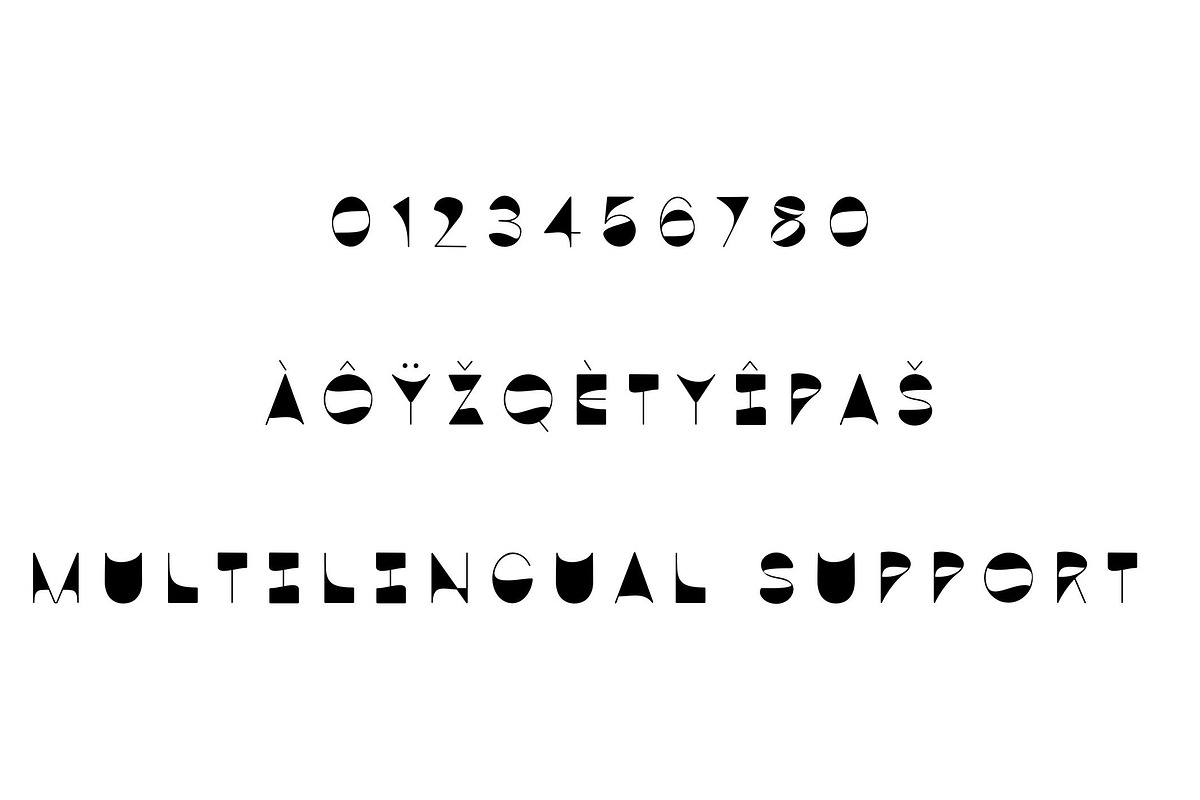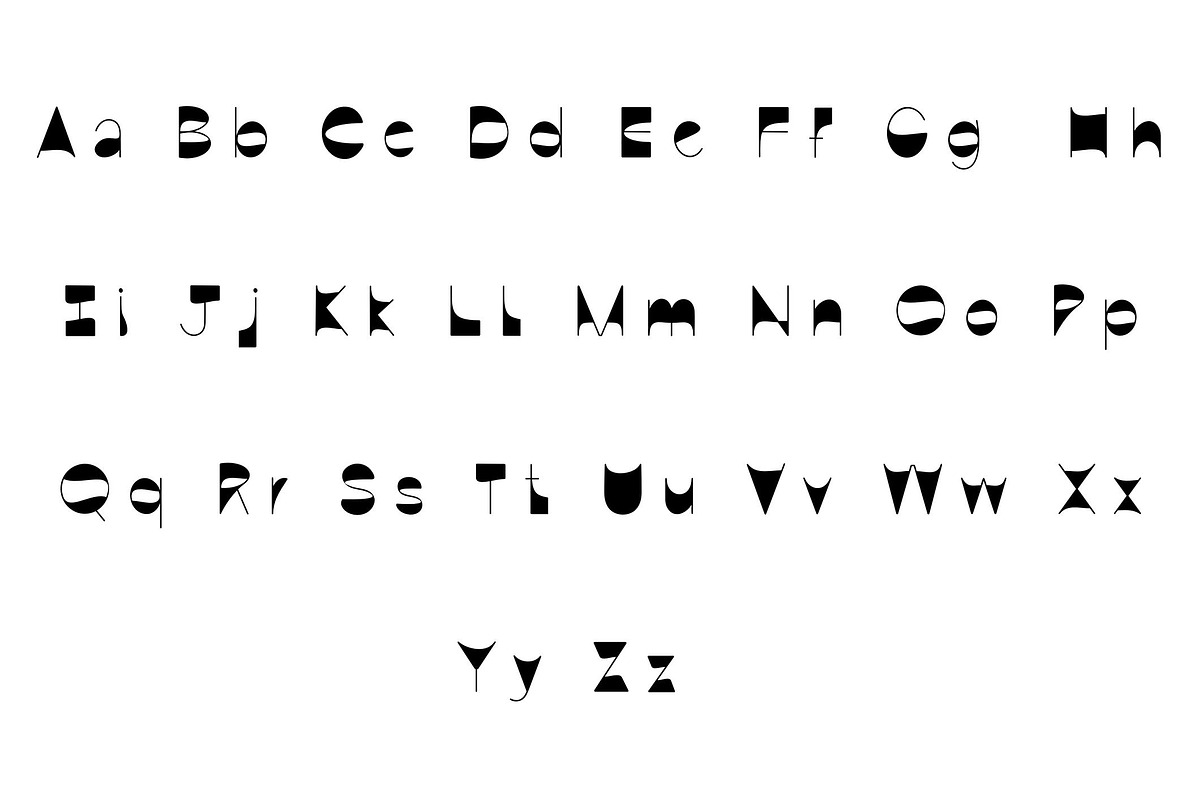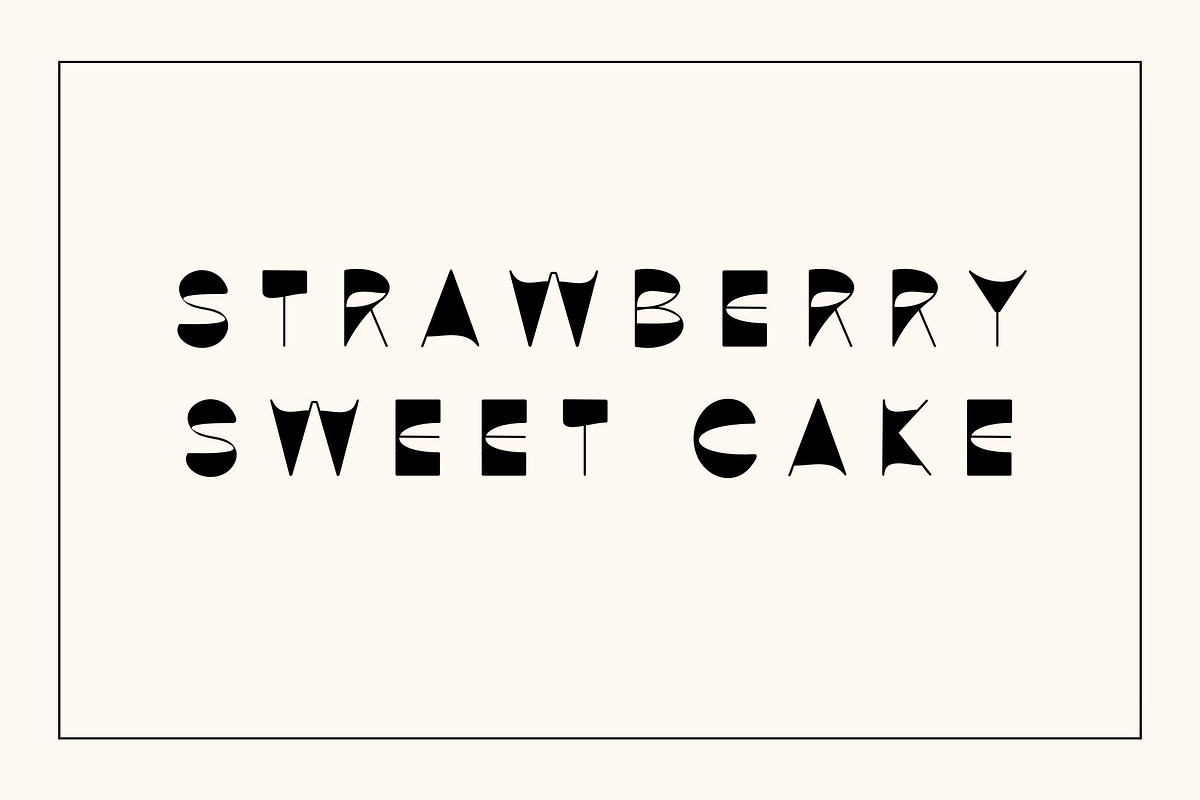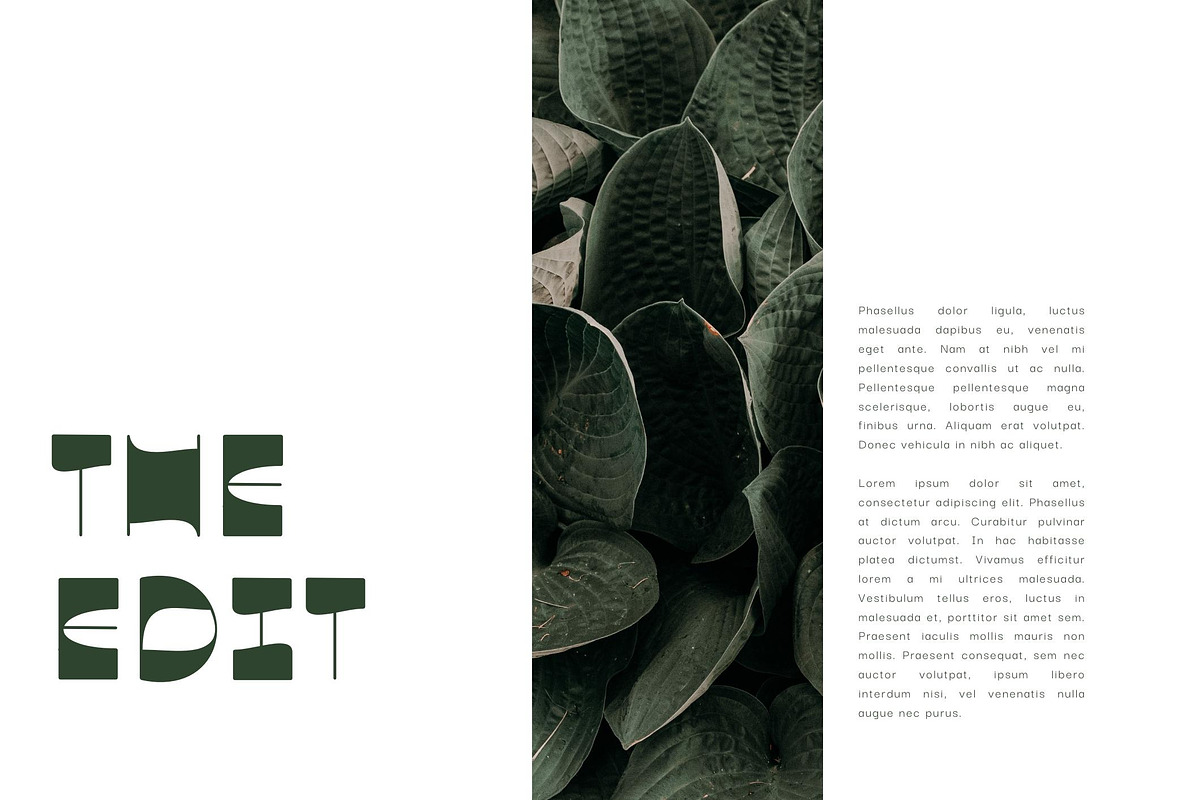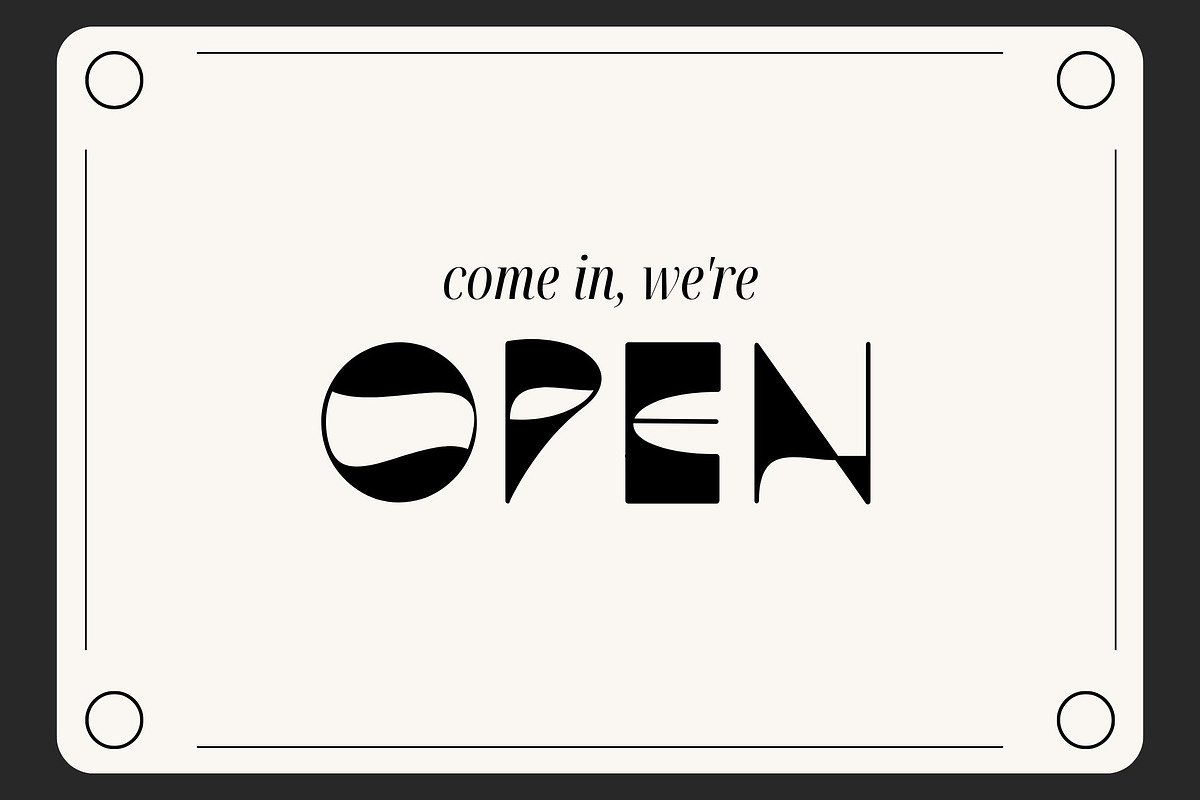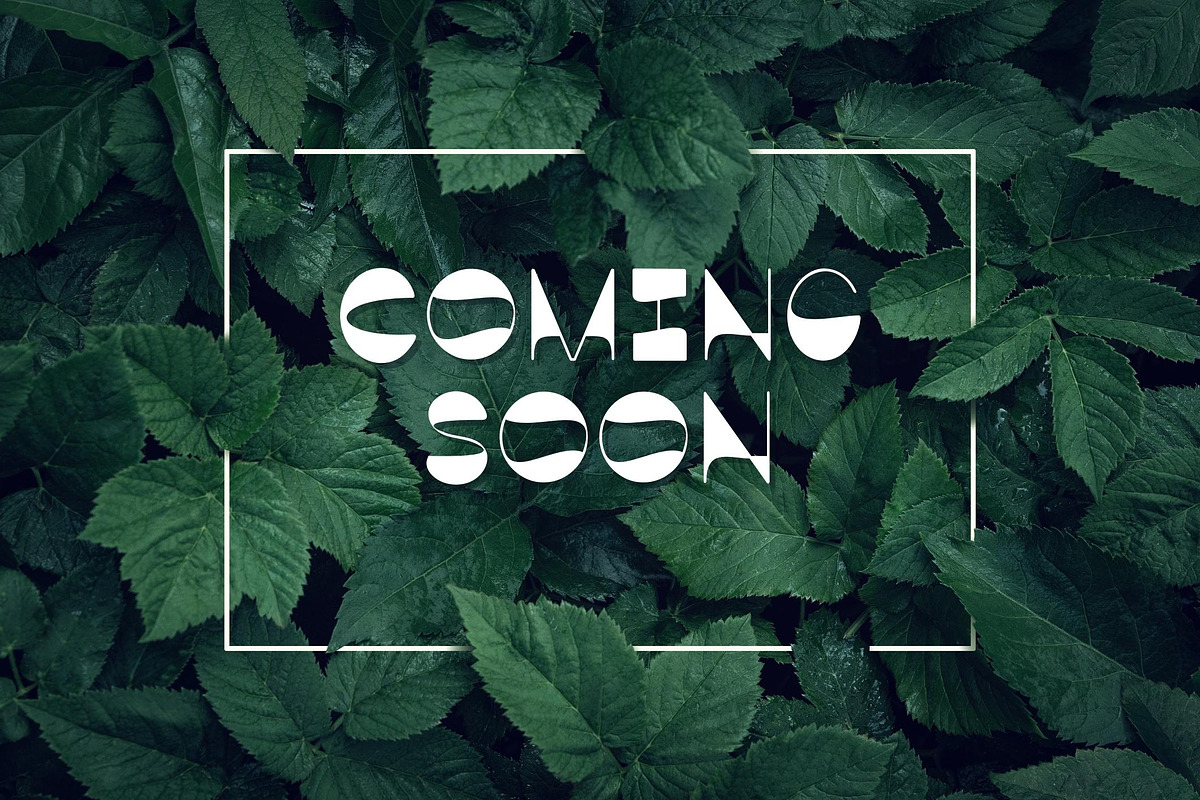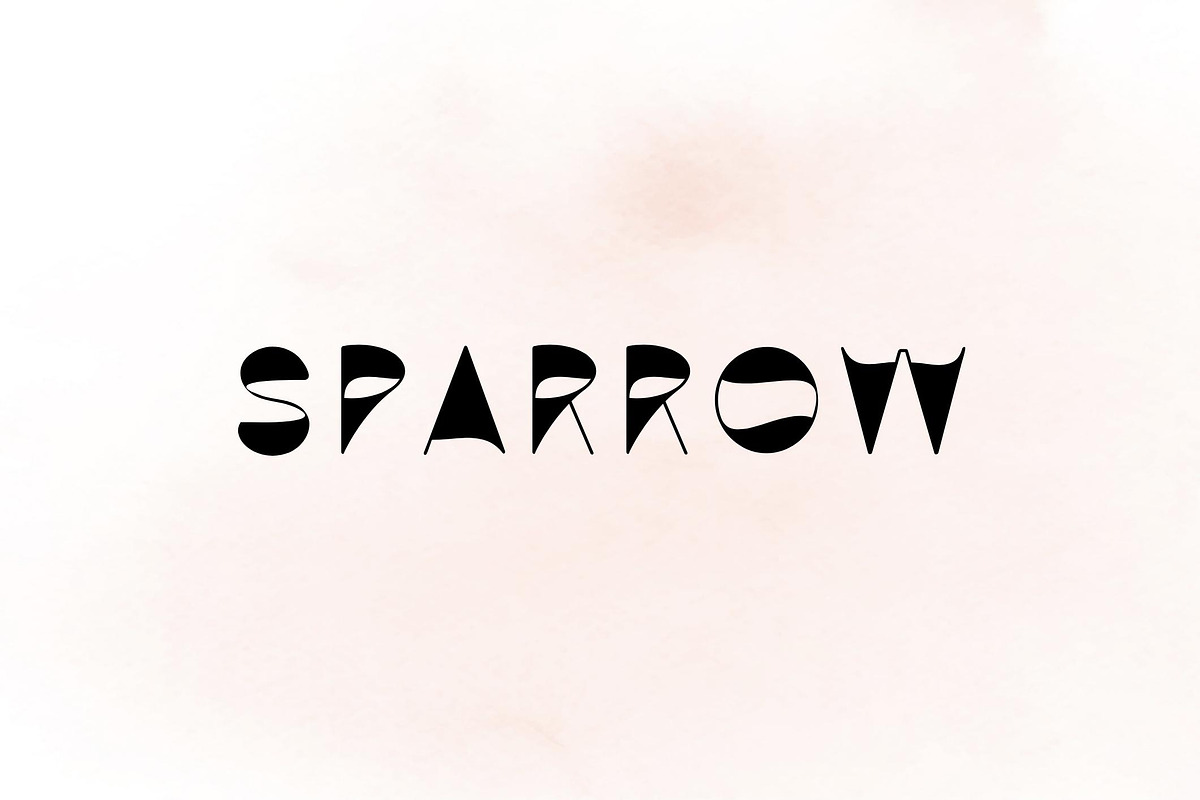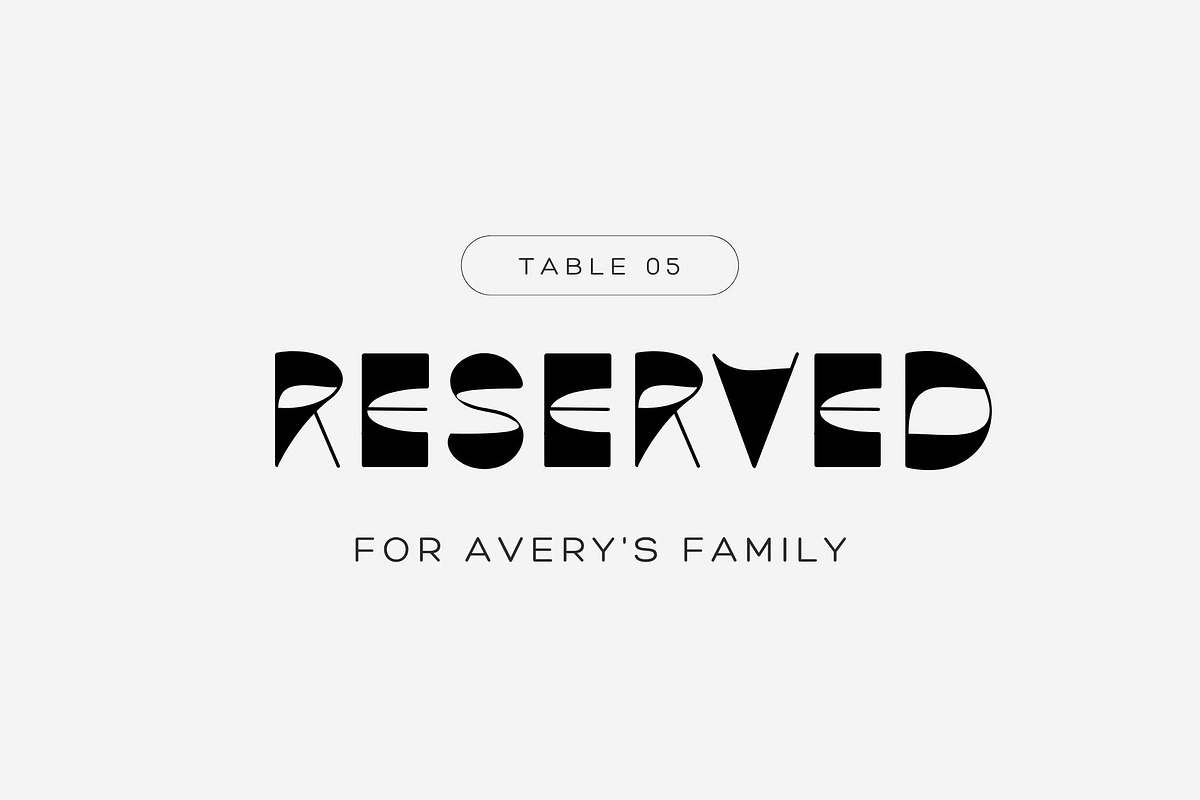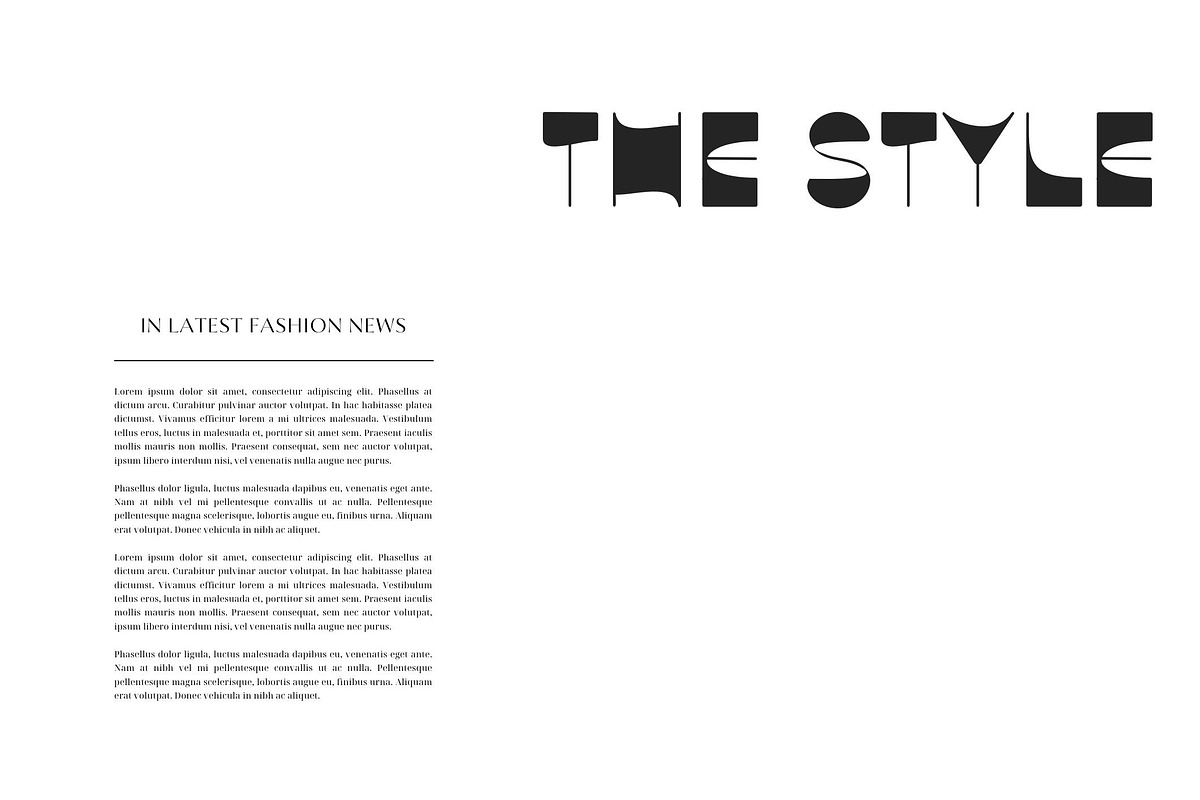
Sparrow - modern sans serif
Sparrow is a modern sans serif font.
This font is perfect for advertising, headings, blogs, logos, branding and more!
This font would pair well with a script style & also it’s speak loud it’s own.
Uppercase, Lowercase, Numbers & punctuation & Multilingual support.